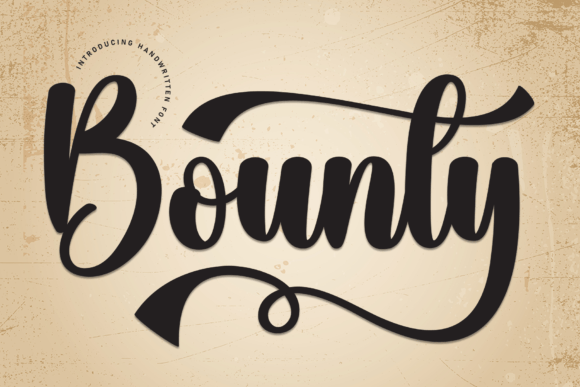
Embark on a typographic adventure with Bounty Font, a whimsical journey through the world of handwritten scripts. Its charming and approachable personality exudes warmth and friendliness, captivating hearts with every stroke.
Immerse yourself in the boundless creativity of Bounty Font. Designed with the magic of children's invitations in mind, this font effortlessly transforms ordinary words into enchanting tales. Let your imagination soar as you craft invitations that spark wonder and ignite smiles.
With Bounty Font, storytelling takes on a new dimension. Its natural and unique style lends itself seamlessly to a vast array of designs. From playful birthday invites to enchanting baby shower announcements, Bounty Font becomes a canvas for your creativity, transforming each letter into a brushstroke of delight.
The versatility of Bounty Font knows no bounds. Its enchanting presence graces social media posts, adding a touch of whimsy to your online interactions. It lends an air of sophistication to wedding stationery, capturing the essence of love and commitment with every curl and flourish. Unleash your inner artist and let Bounty Font weave its magic into your creative endeavors.
Step into a world where imagination reigns supreme. Bounty Font beckons you to explore the depths of your creativity, transforming the ordinary into the extraordinary. Its sweet and friendly demeanor radiates warmth and joy, making it the perfect choice for projects that seek to evoke happiness and charm.
Join the countless designers and creatives who have fallen in love with Bounty Font. Its effortless elegance and playful spirit have made it a favorite for crafting children's books, adding a touch of enchantment to every page. Let Bounty Font be your guide as you embark on a typographic odyssey, leaving a trail of smiles and wonder in your wake.